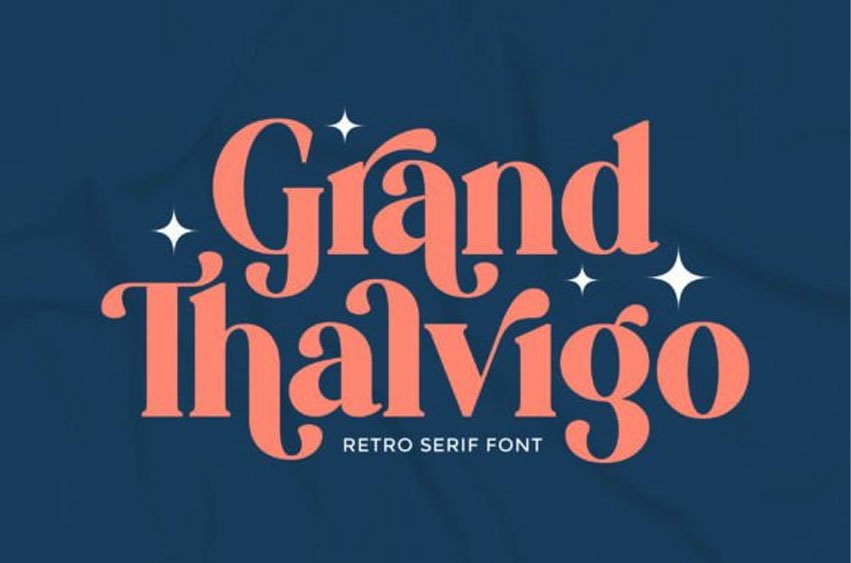
Grand Thalvigo Font is a retro serif typeface that captures timeless charm with a touch of modern sophistication. Its bold curves, playful swashes, and elegant letterforms create a stylish balance between vintage aesthetics and contemporary appeal.
Perfect for logos, posters, packaging, and editorial headlines, Grand Thalvigo adds personality and flair to every design project.